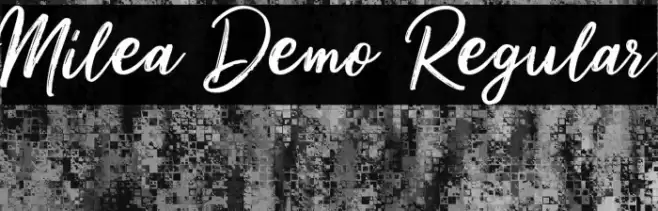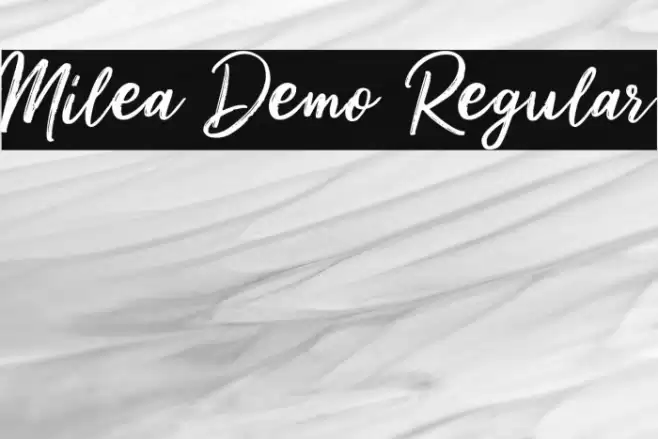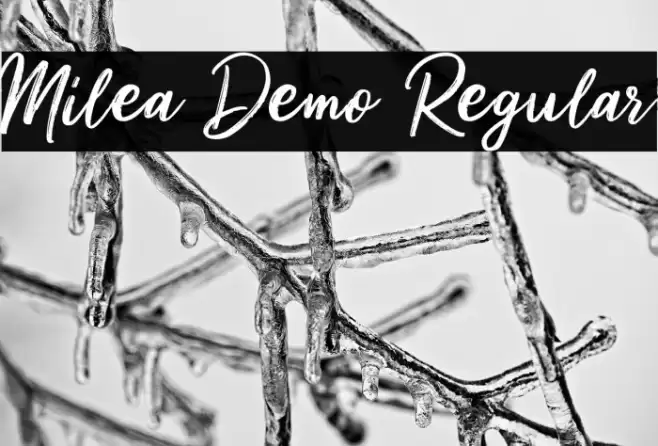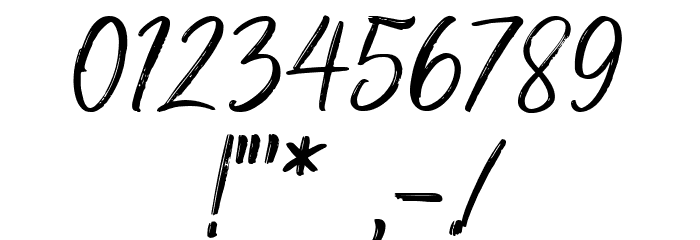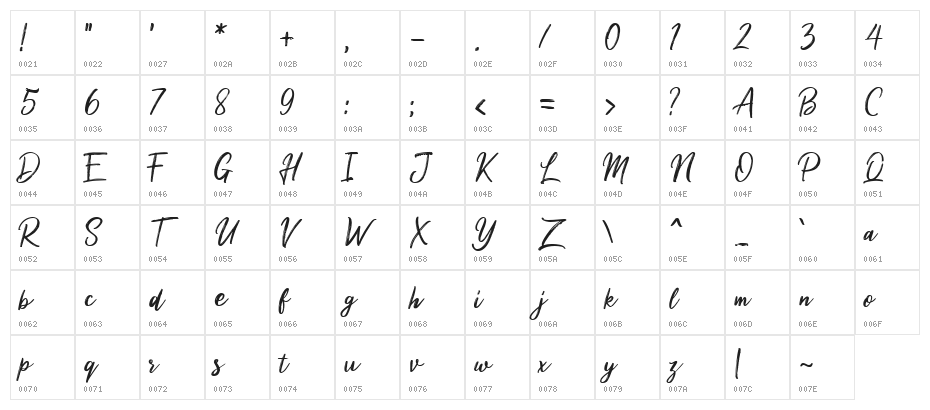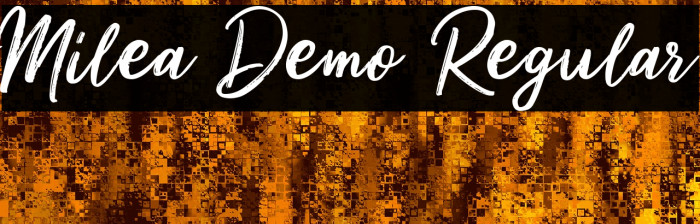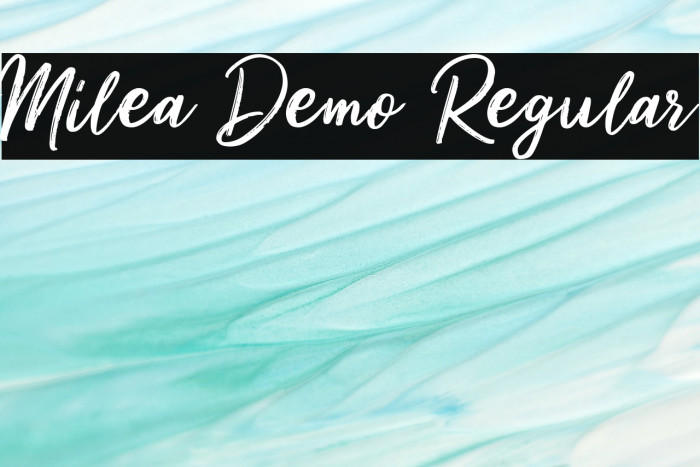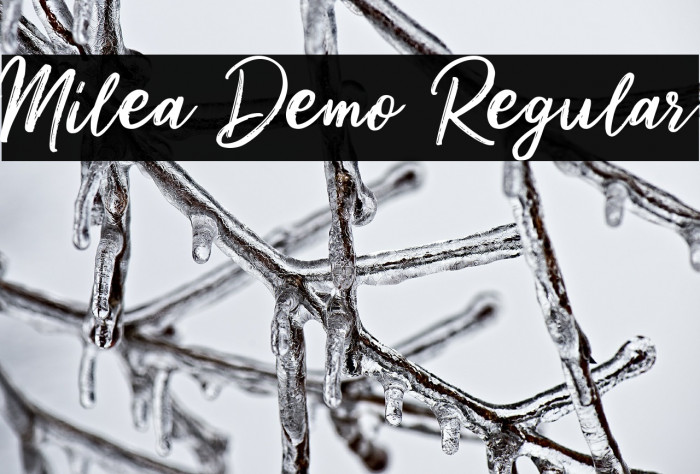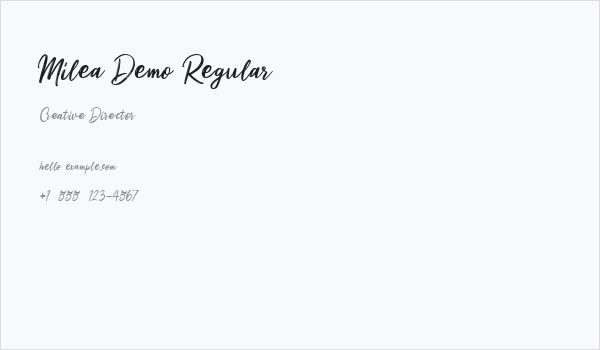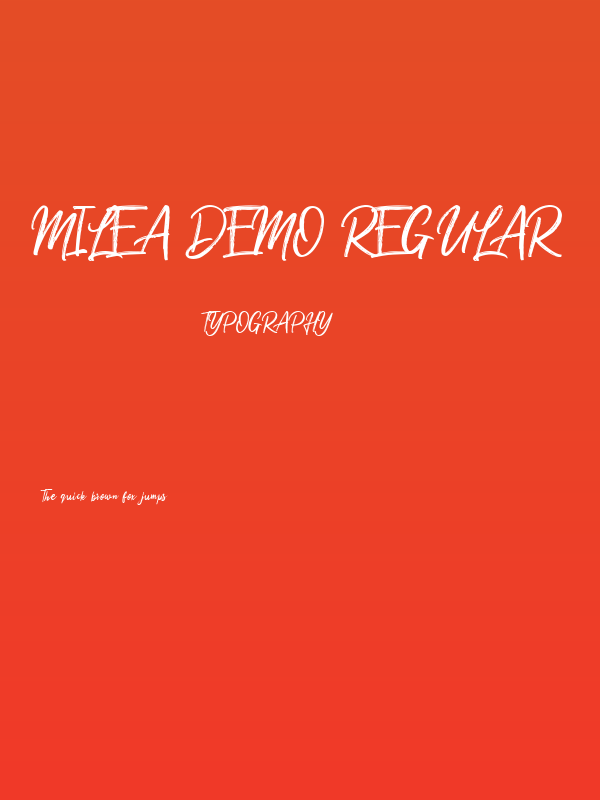
Milea Demo Regular Font
Milea Demo Regular Description
This font features a dynamic and expressive script style, characterized by its fluid and cursive letterforms. The uppercase letters are bold and sweeping, with a sense of motion and energy, while the lowercase letters maintain a consistent flow, adding a touch of elegance. The numbers are distinct and maintain the same lively style, making them easily readable. Special characters are integrated seamlessly, enhancing the font's versatility. The overall appearance is both artistic and modern, suitable for creative and eye-catching designs.
A dynamic and expressive script font with fluid, cursive letterforms from Uncategorized fonts.
- Proposed Projects: Ideal for branding, invitations, greeting cards, and creative design projects that require a personal and artistic touch.
- Use Case: Logos, Invitations, Greeting Cards